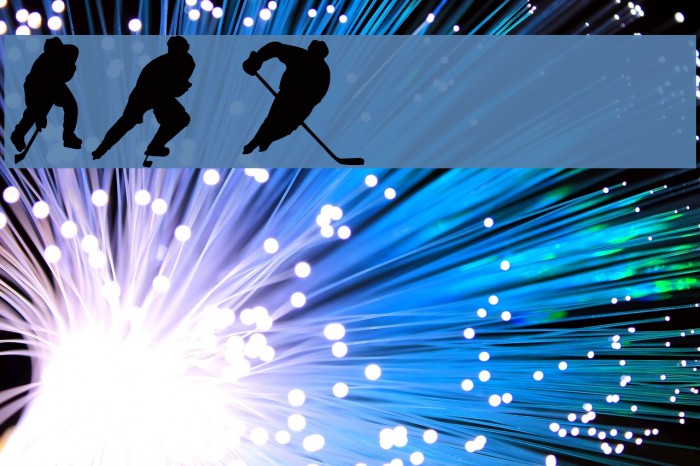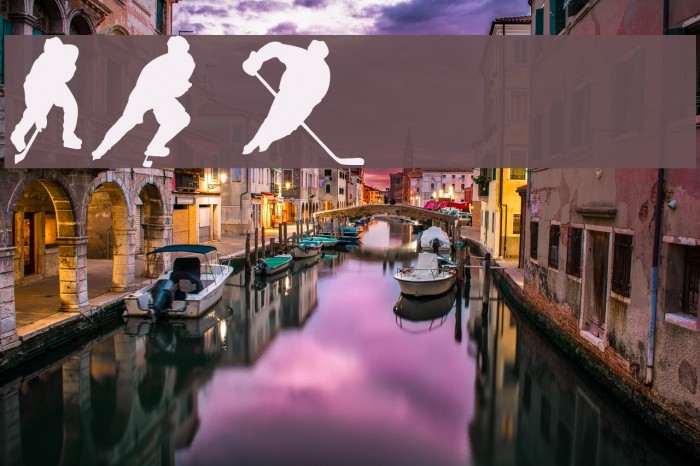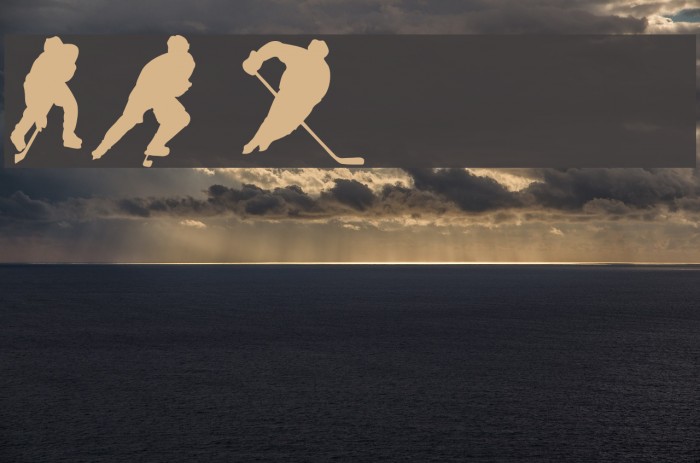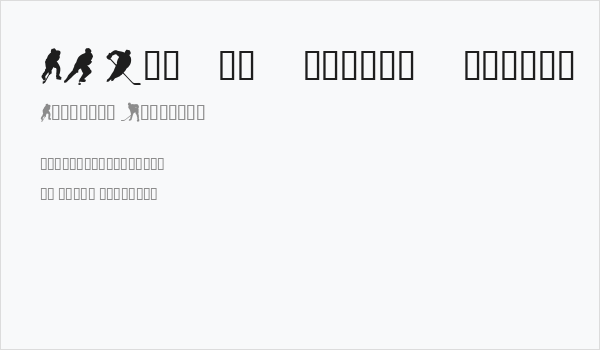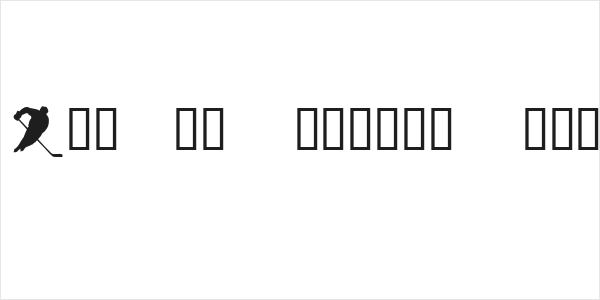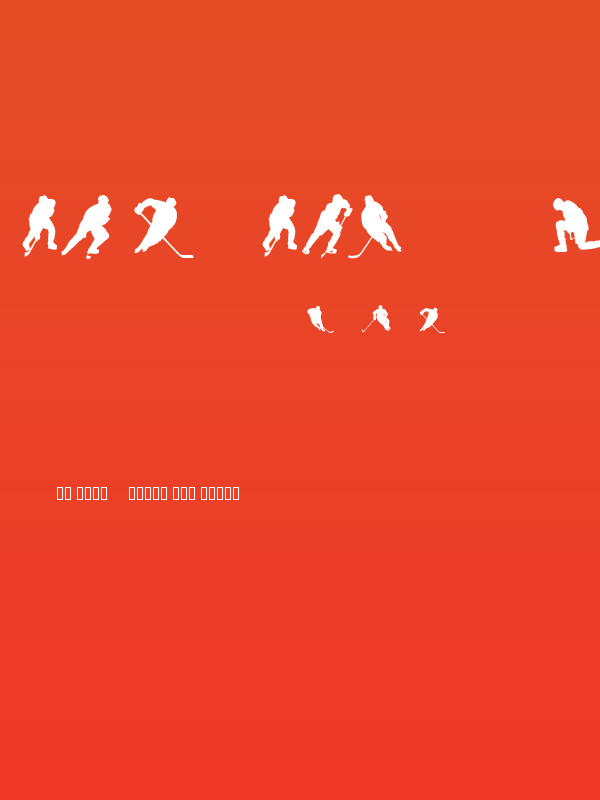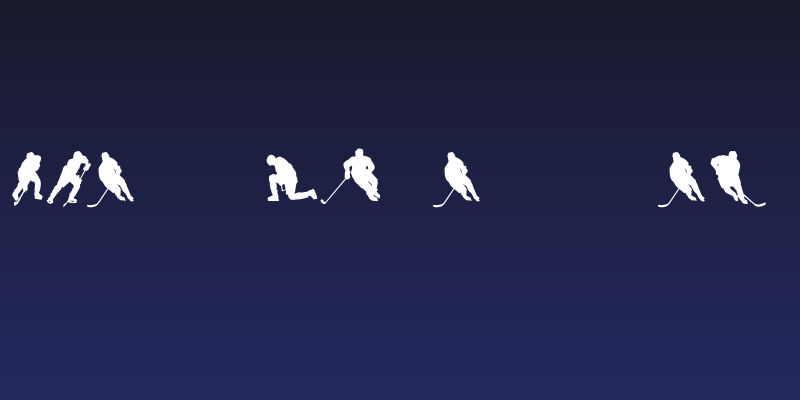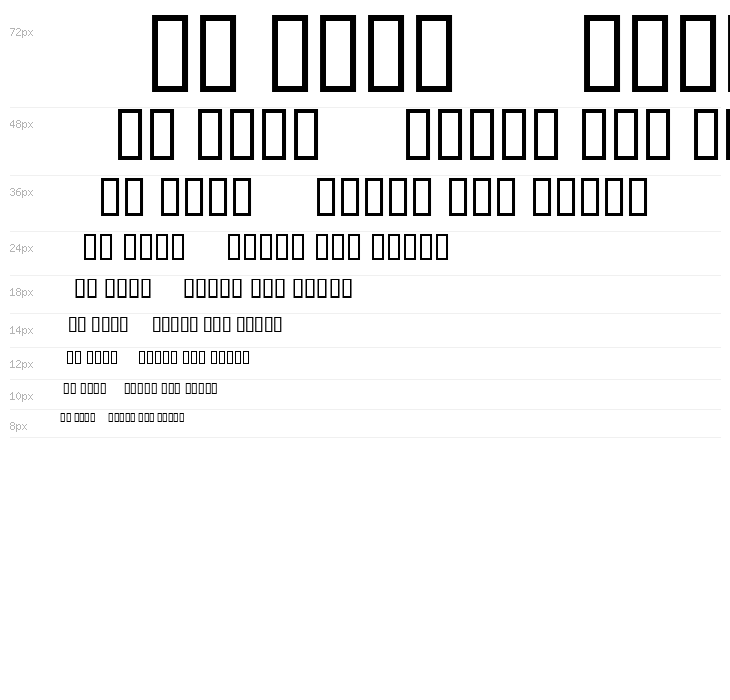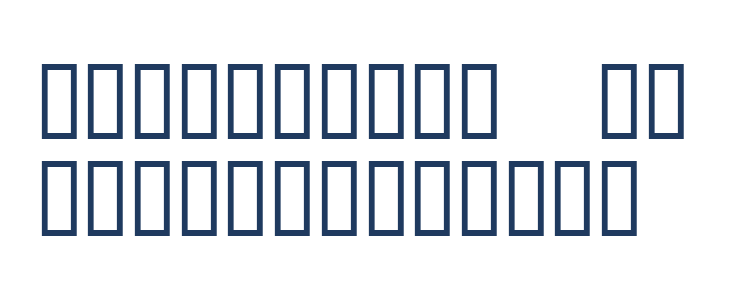
CF Hockey Players Regular Font
CF Hockey Players Regular Description
This font features a series of dynamic silhouettes of hockey players in various action poses. Each character is represented by a different hockey player, capturing the energy and movement of the sport. The figures are bold and solid, making them stand out against any background. This unique style is perfect for sports-themed projects, offering a playful yet impactful visual element. The font does not include traditional alphanumeric characters, instead focusing on the detailed and expressive forms of the athletes. The silhouettes are evenly spaced, ensuring clarity and readability when used in designs.
| Use Case | Logos, Posters, Merchandise |
| Proposed Projects | Ideal for sports event posters, team merchandise, and dynamic graphic designs. |